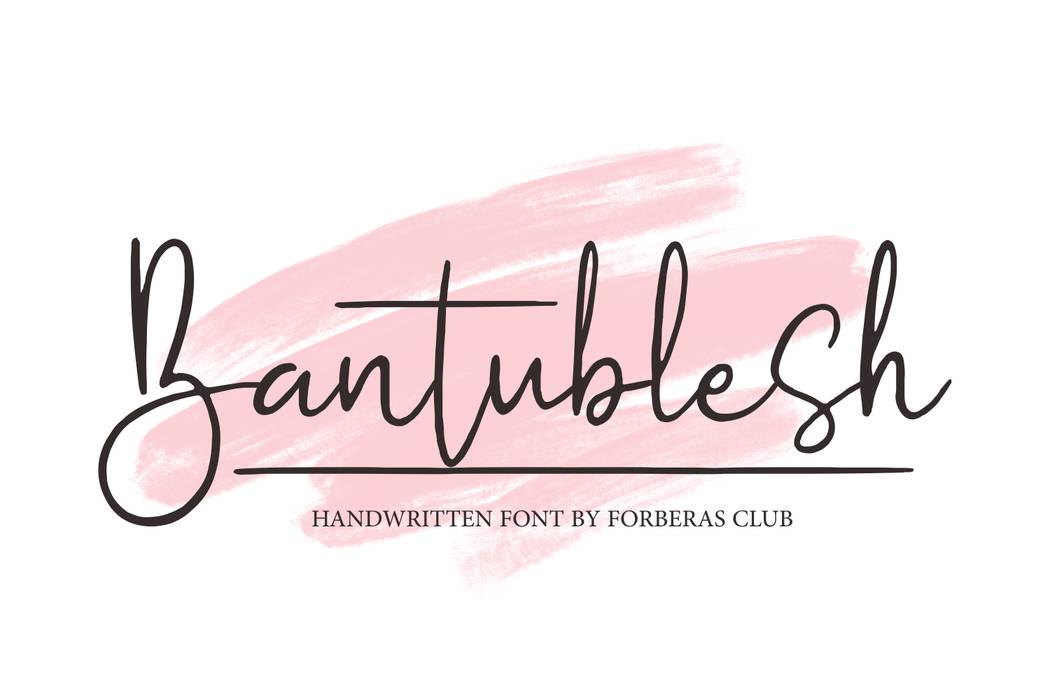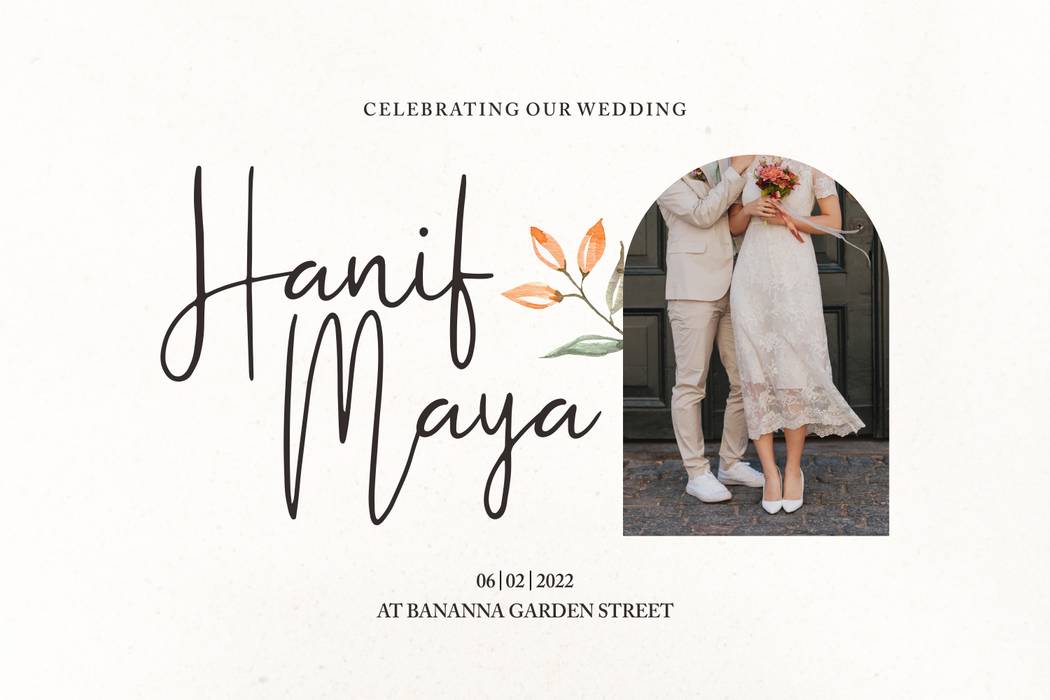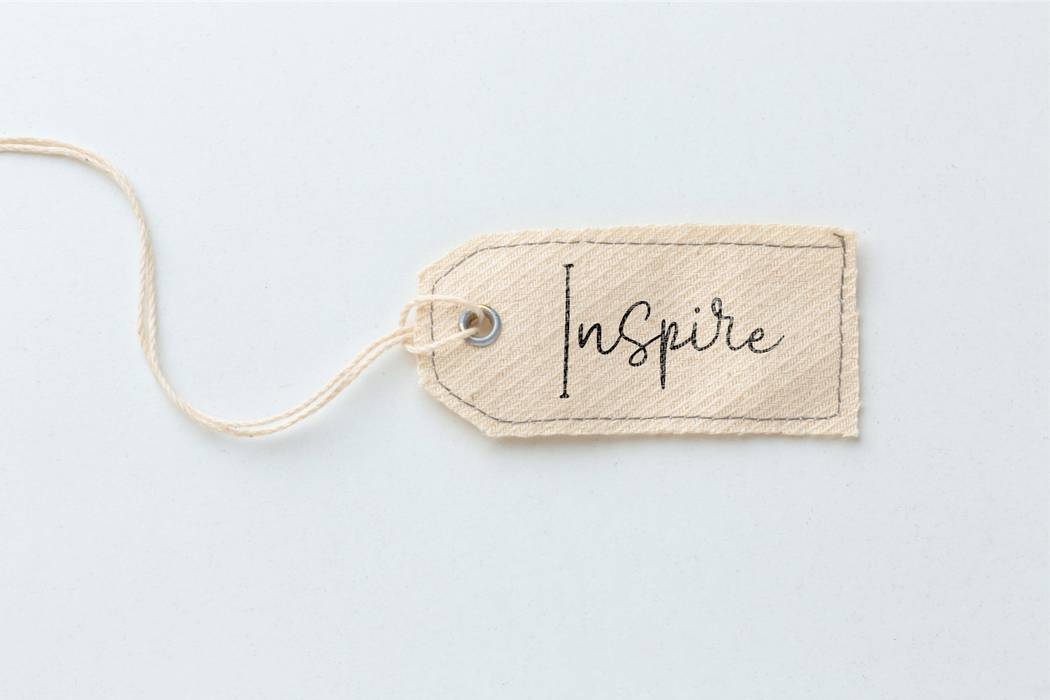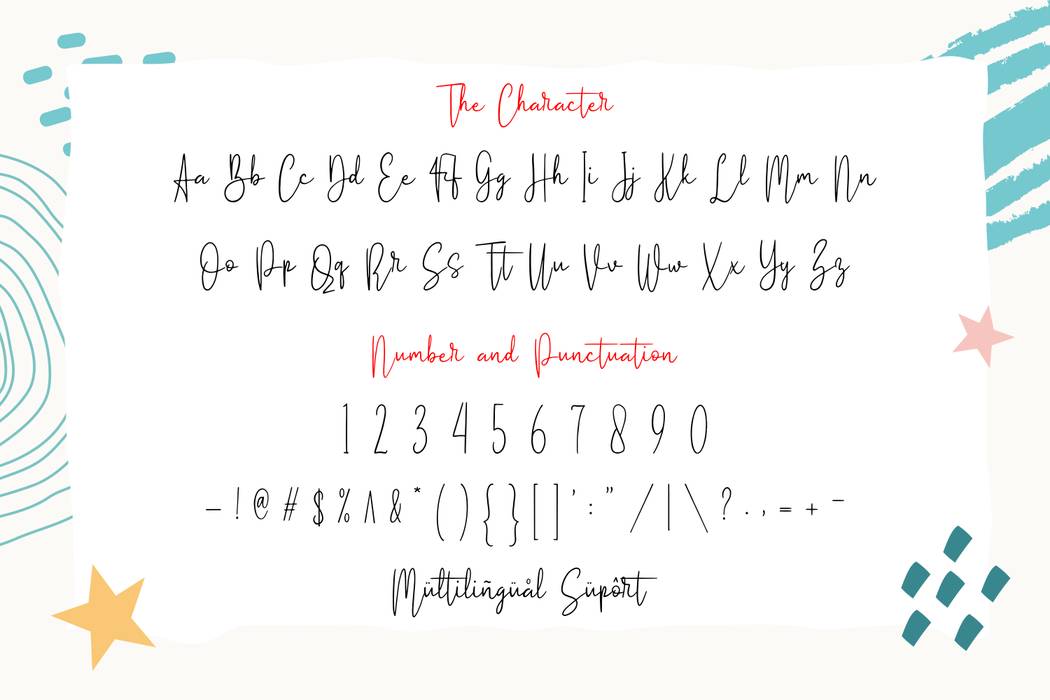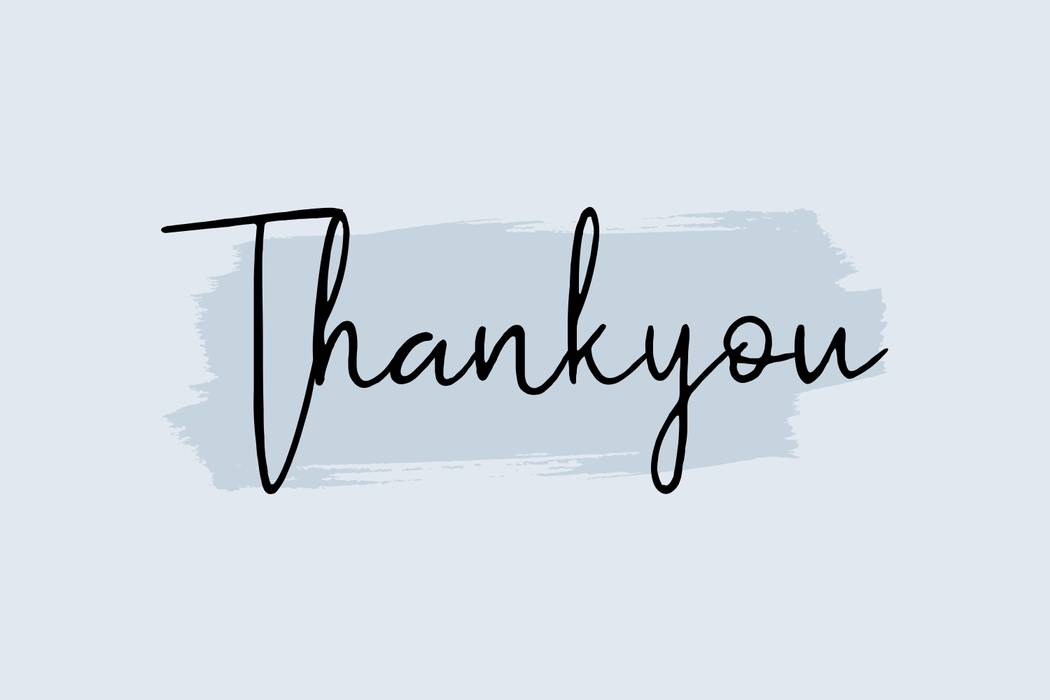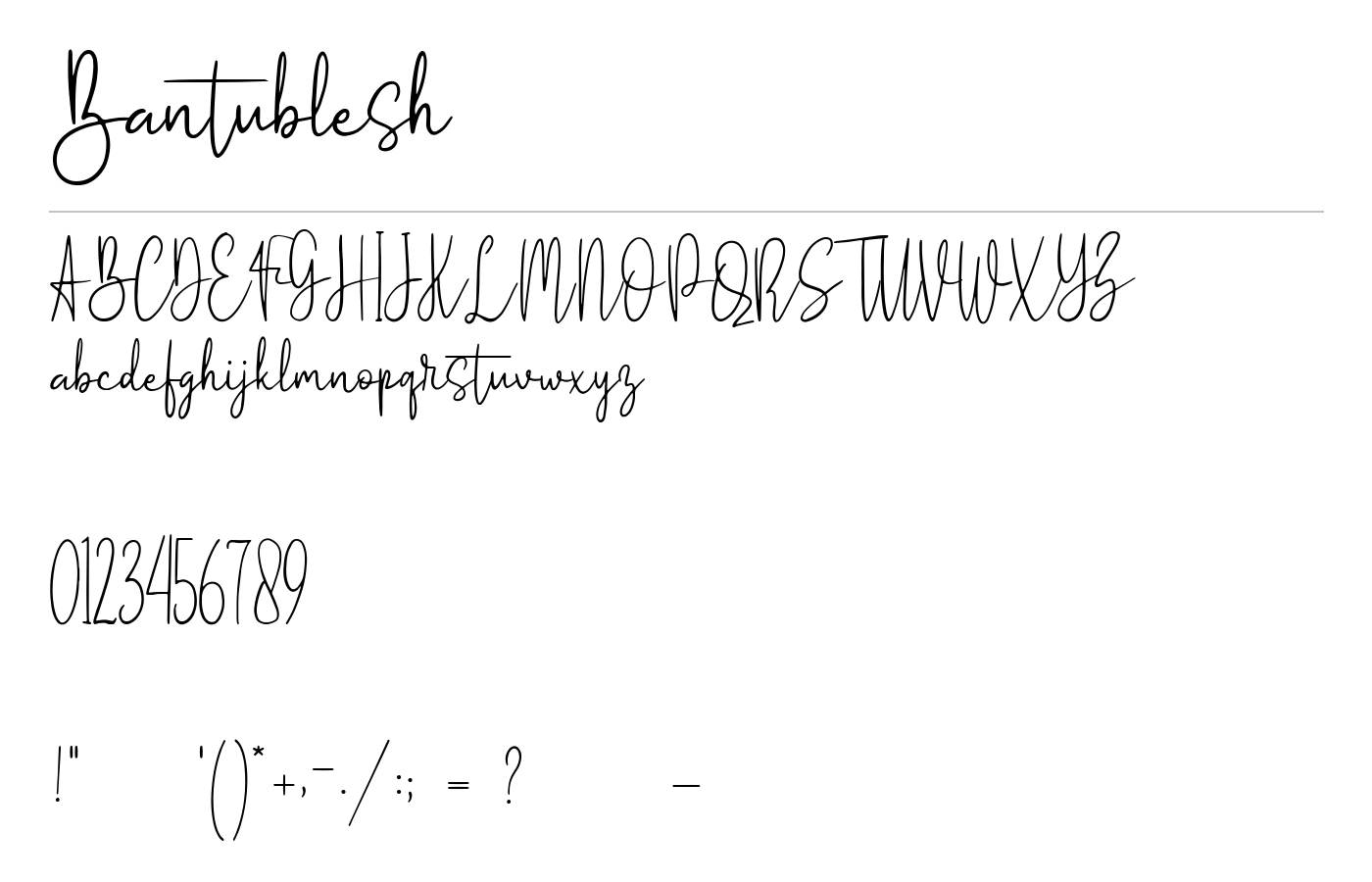
Bantublesh is a delicate, handwritten script font with slender, elongated letterforms and a playful yet elegant touch. Its light weight and airy spacing give it a casual, friendly feel, making it ideal for personal branding, invitations, and creative projects that want to convey warmth and individuality. The font’s unique, flowing style works well in contexts where a charming, approachable look is desired without sacrificing sophistication.
Bantublesh Font
About Bantublesh Font
| Font family | Bantublesh Font |
| Designer | Forberas |